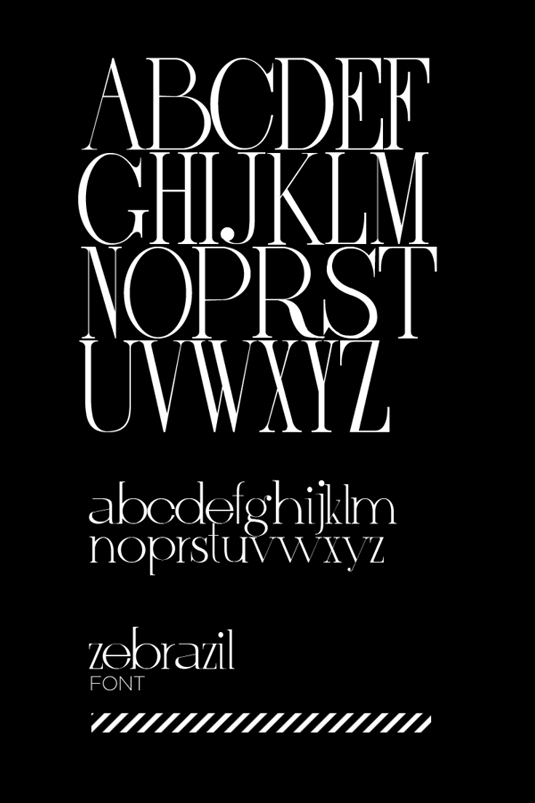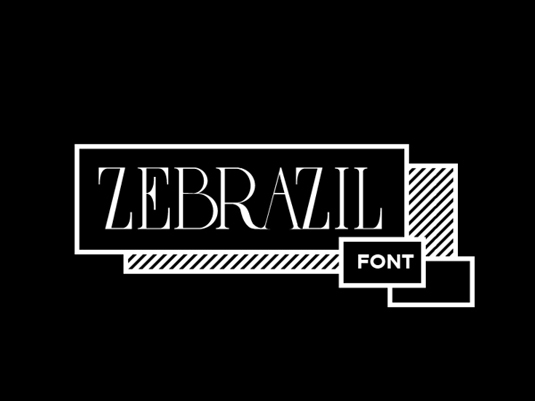
Font of the day: Zebrazil
Every day we showcase the best fonts from around the web. Today it's Zebrazil by Zarni, which is free to download!
Zebrazil by Zarni
Today's font of choice Zebrazil was created by Myanmar-based graphic designer Zarni. This serif font is one of many created by Zarni, who generously offers his design as a free download.